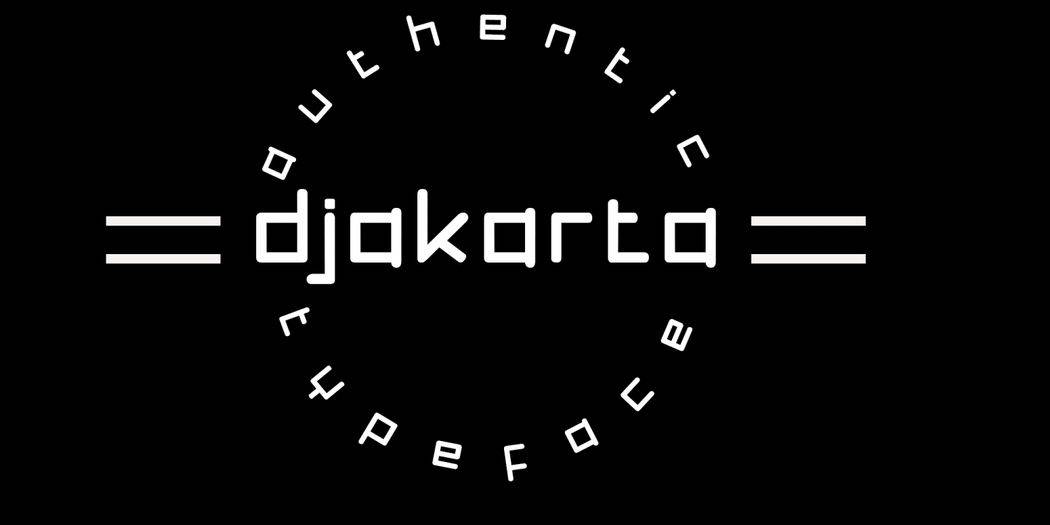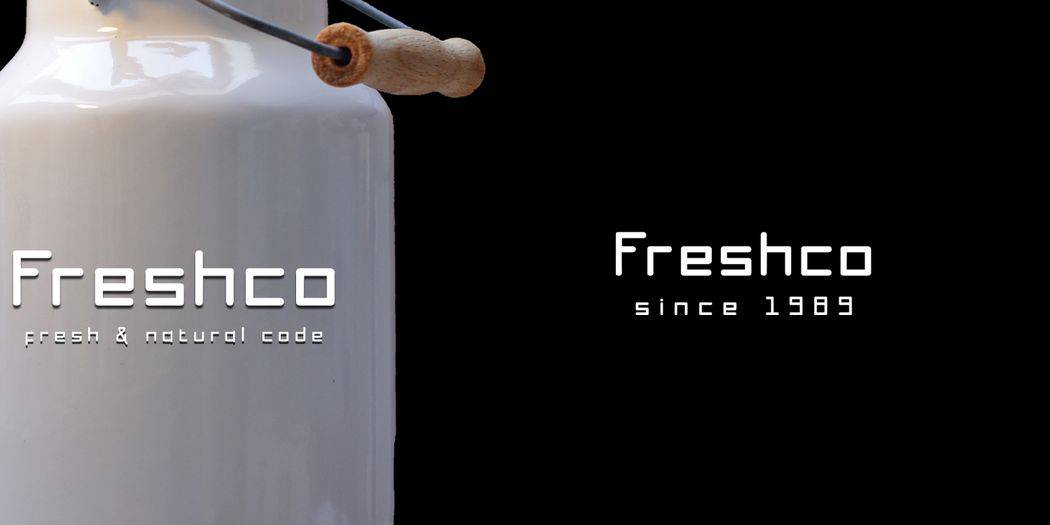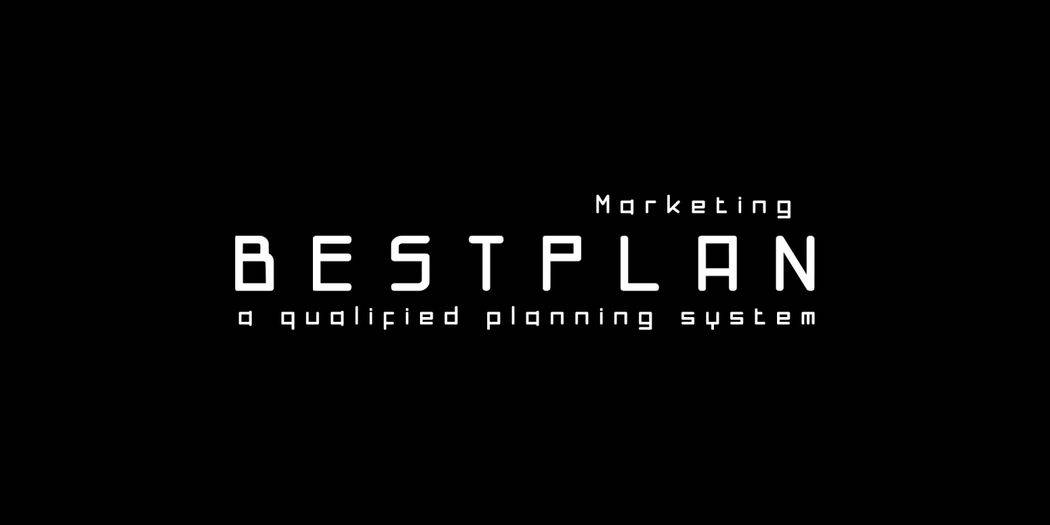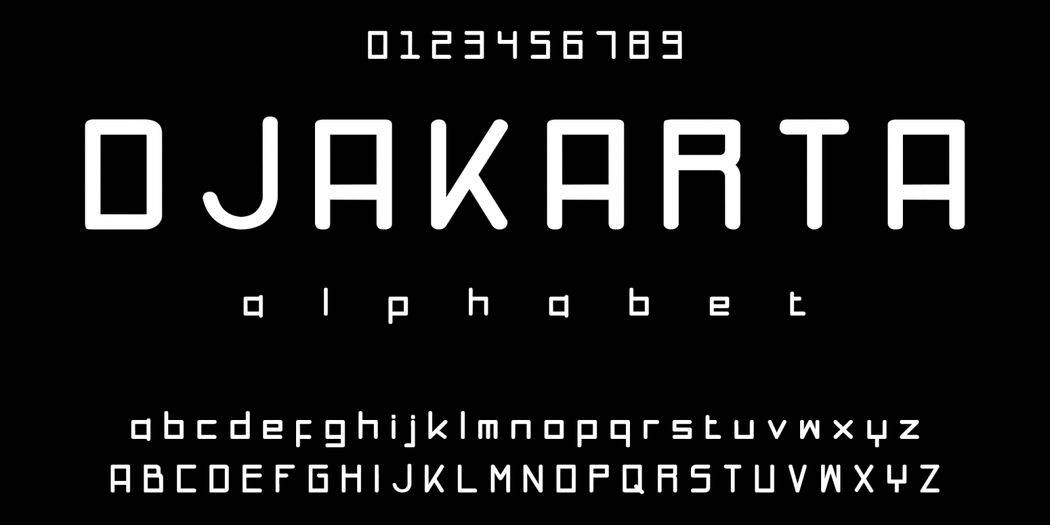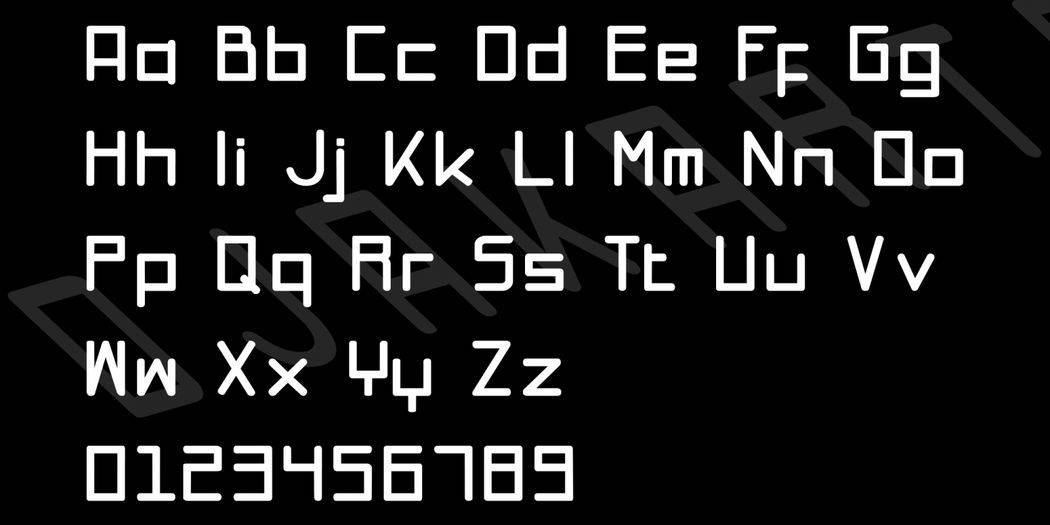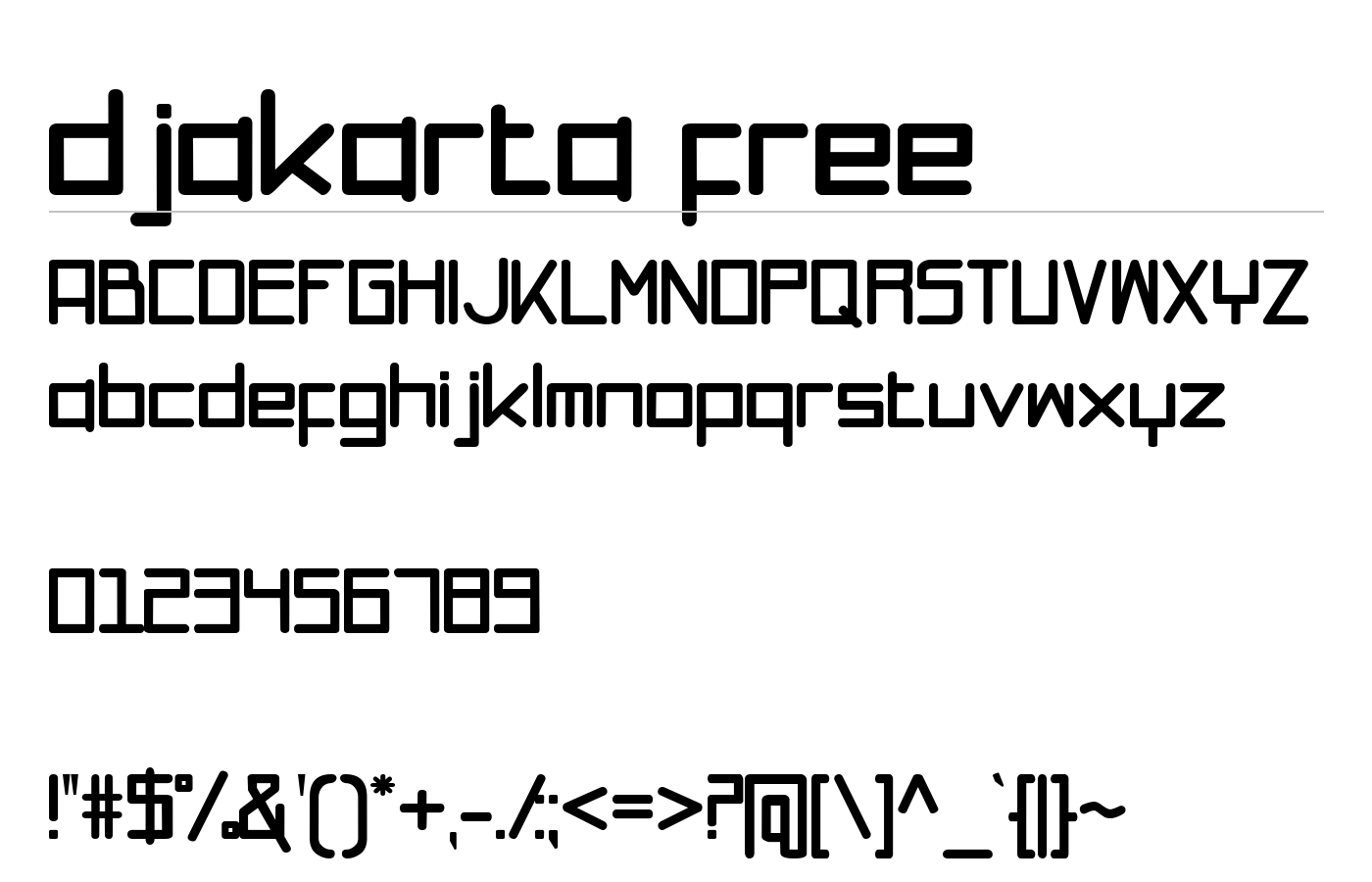
Murisa Djakarta is a geometric, sans-serif font featuring a modern and tech-inspired style with clean, uniform strokes and a compact width. Its monolinear, squared letterforms and slightly rounded corners create a futuristic yet approachable look, making it ideal for projects seeking a contemporary and digital-savvy vibe. This font works well for logos, headlines, websites, and branding in technology or creative industries where clarity and a modern edge are key.
Murisa Djakarta Font
About Murisa Djakarta Font
| Font family | Murisa Djakarta Font |
| Designer | murisa studio 2020 |